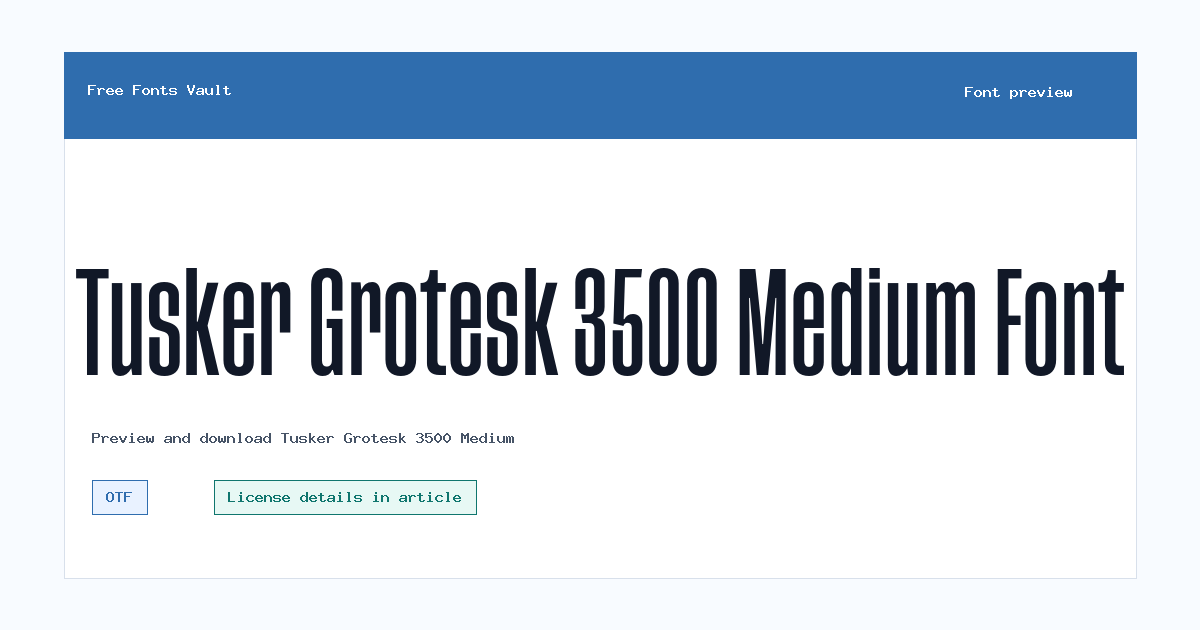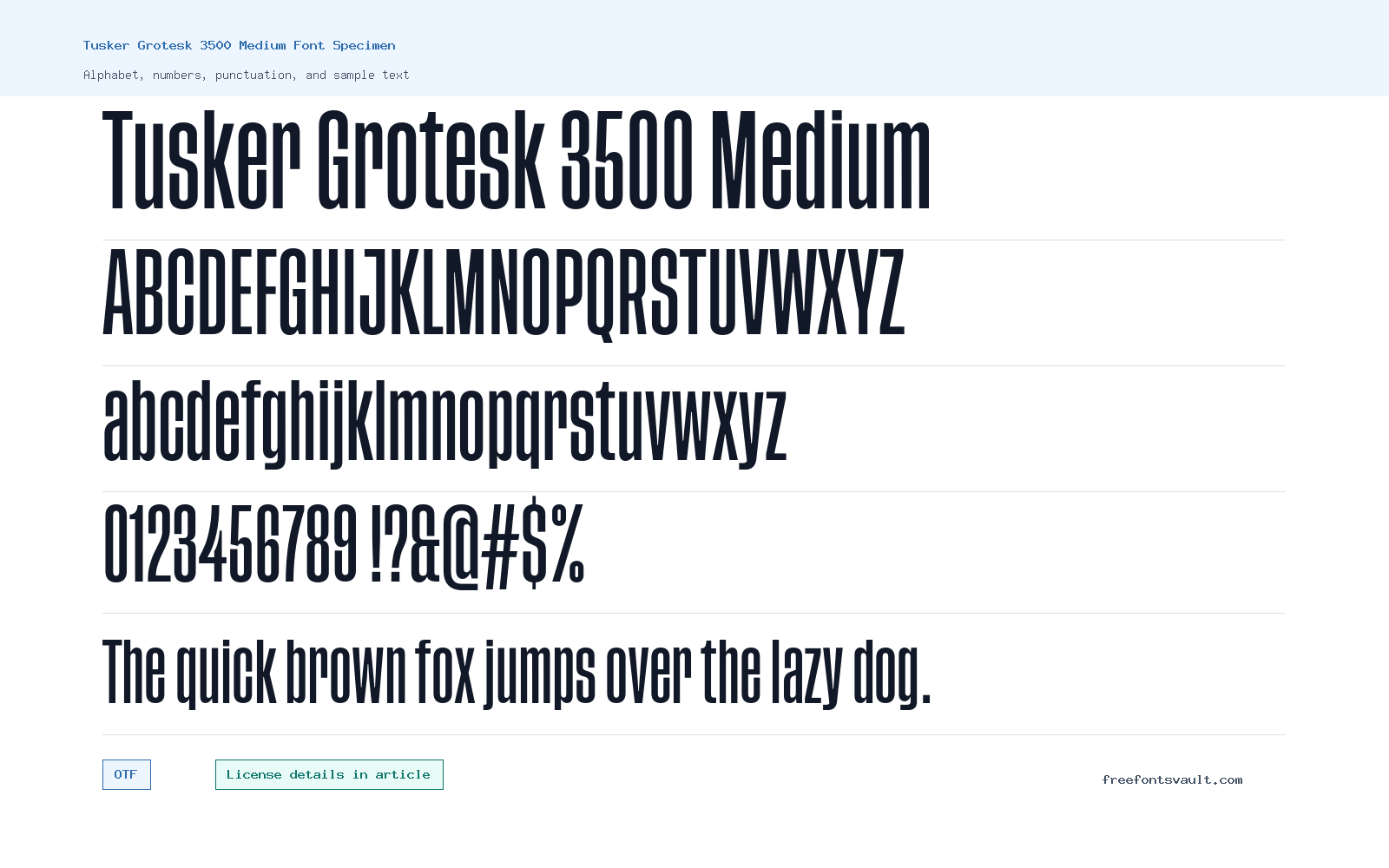
Tusker Grotesk 3500 Medium
- Designer Lewis McGuffie
- Foundry Lewis McGuffie
Tusker Grotesk 3500 Medium font.
Tusker Grotesk 3500 Medium is a tall, condensed grotesk style for big words in tight spaces. It has the presence of a display font without the darkness of an ultra-heavy cut, making it useful for posters, cover art, banners, and stacked headline layouts.
About Tusker Grotesk 3500 Medium Font
Tusker Grotesk 3500 Medium works well when a design needs height, rhythm, and impact. The medium weight keeps strokes strong enough for large display settings while leaving more breathing room than a black weight. It is a good candidate for sports graphics, event titles, editorial covers, packaging studies, and social media artwork.
Use the live preview with real words, not only the alphabet. Condensed grotesk fonts can look sharp in short phrases but become tiring in long lines. Try uppercase headlines, small groups of words, dates, prices, and punctuation to see how spacing behaves in the layout you have in mind.
For a polished result, pair Tusker Grotesk 3500 Medium with a simpler text font. Let Tusker handle the attention-grabbing phrase, then use a neutral sans serif for descriptions, captions, menus, or body copy. That contrast keeps the page readable while preserving the tall display personality.
- Medium 500 weight with a tall condensed grotesk feel
- Strong vertical rhythm for stacked headlines and compact layouts
- Useful for uppercase words, dates, short titles, and poster text
- Better suited to display use than long reading copy
- Posters, covers, and editorial title treatments
- Sports graphics, event banners, and campaign headlines
- Packaging concepts and bold branding mockups
- Social media artwork with tall compact lettering
- Short display phrases where space is limited
Use Tusker Grotesk 3500 Medium for short, confident display text. It usually works best at larger sizes with careful line breaks. Avoid dense paragraphs and very small UI labels unless you have tested legibility on the actual screen size.
What weight is Tusker Grotesk 3500 Medium?
It is listed as weight 500, which is commonly treated as a medium weight.
What is this font best used for?
It is best for short display settings such as poster titles, covers, banners, campaign graphics, and compact headline layouts.
Should I use it for paragraph text?
Usually no. Its tall condensed shape is more comfortable in short phrases. Pair it with a simpler reading font for paragraphs.